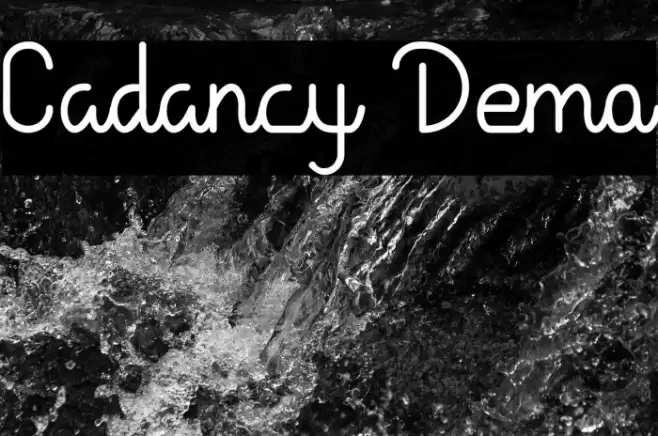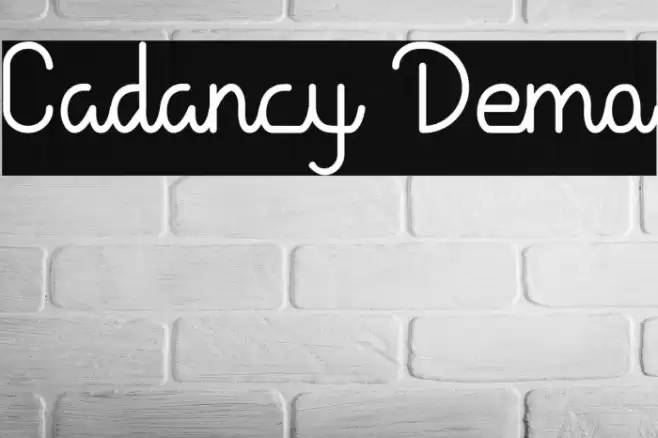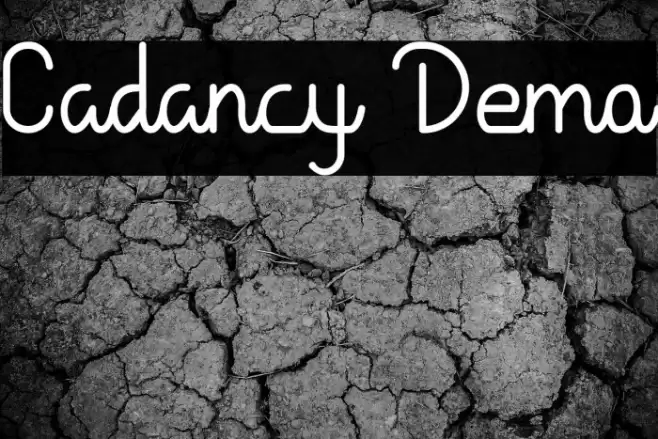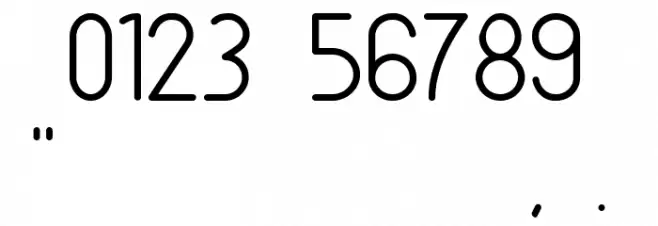
Cadancy Demo Font
Cadancy Demo Description
This font features a unique blend of modern and playful elements, characterized by its rounded, monoline strokes and slightly condensed letterforms. The uppercase letters maintain a consistent height, while the lowercase letters exhibit a charming, handwritten quality with smooth curves and subtle connections. The numerals are clear and legible, matching the overall style of the alphabet. Special characters are thoughtfully designed to complement the font's aesthetic, making it versatile for various applications. The font's clean lines and balanced proportions make it suitable for both digital and print media.
A modern, playful font with rounded, monoline strokes and a handwritten touch from Regular fonts.
- Font: Cadancy Demo
- Proposed Projects: Ideal for branding, packaging, children's books, and playful editorial designs.